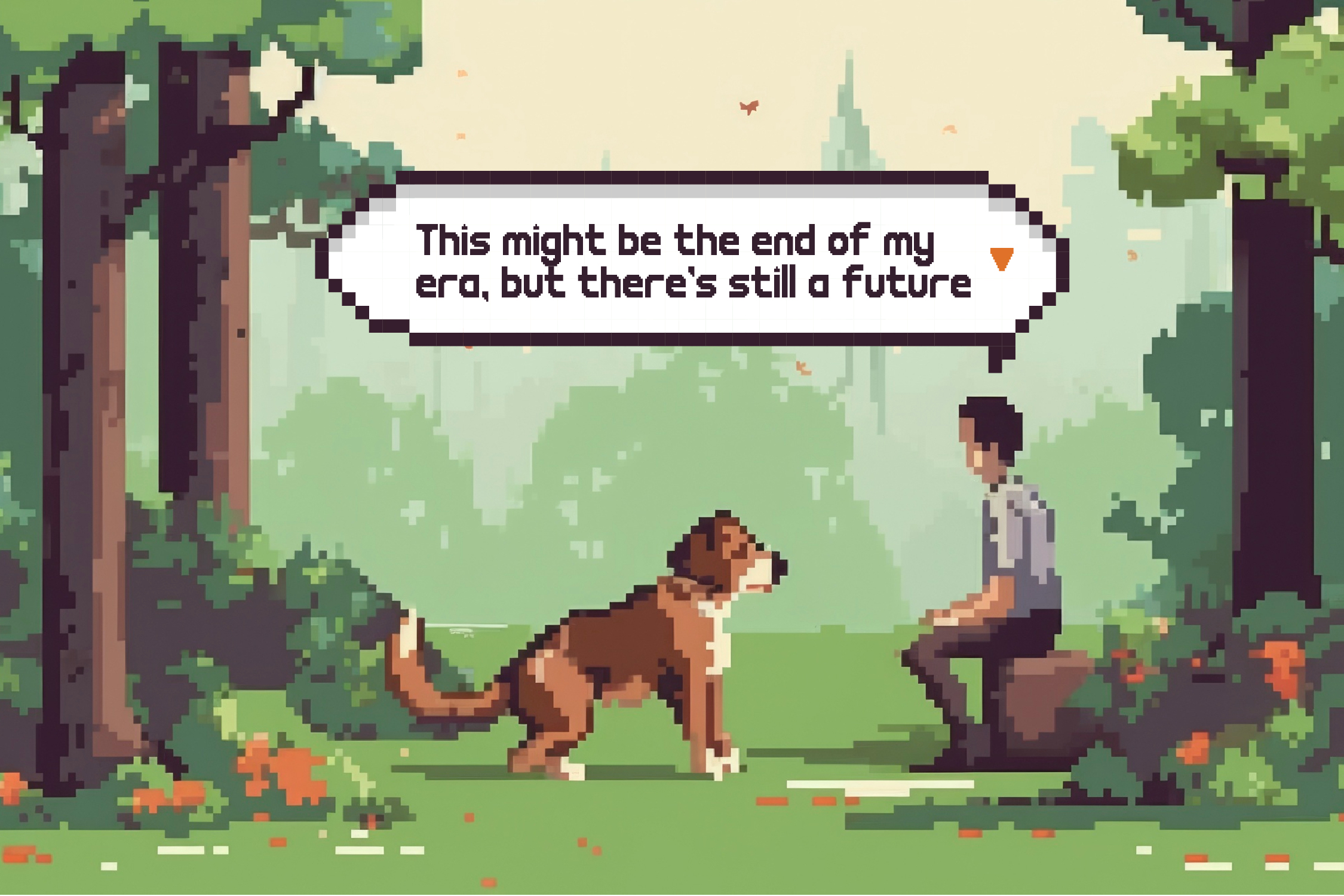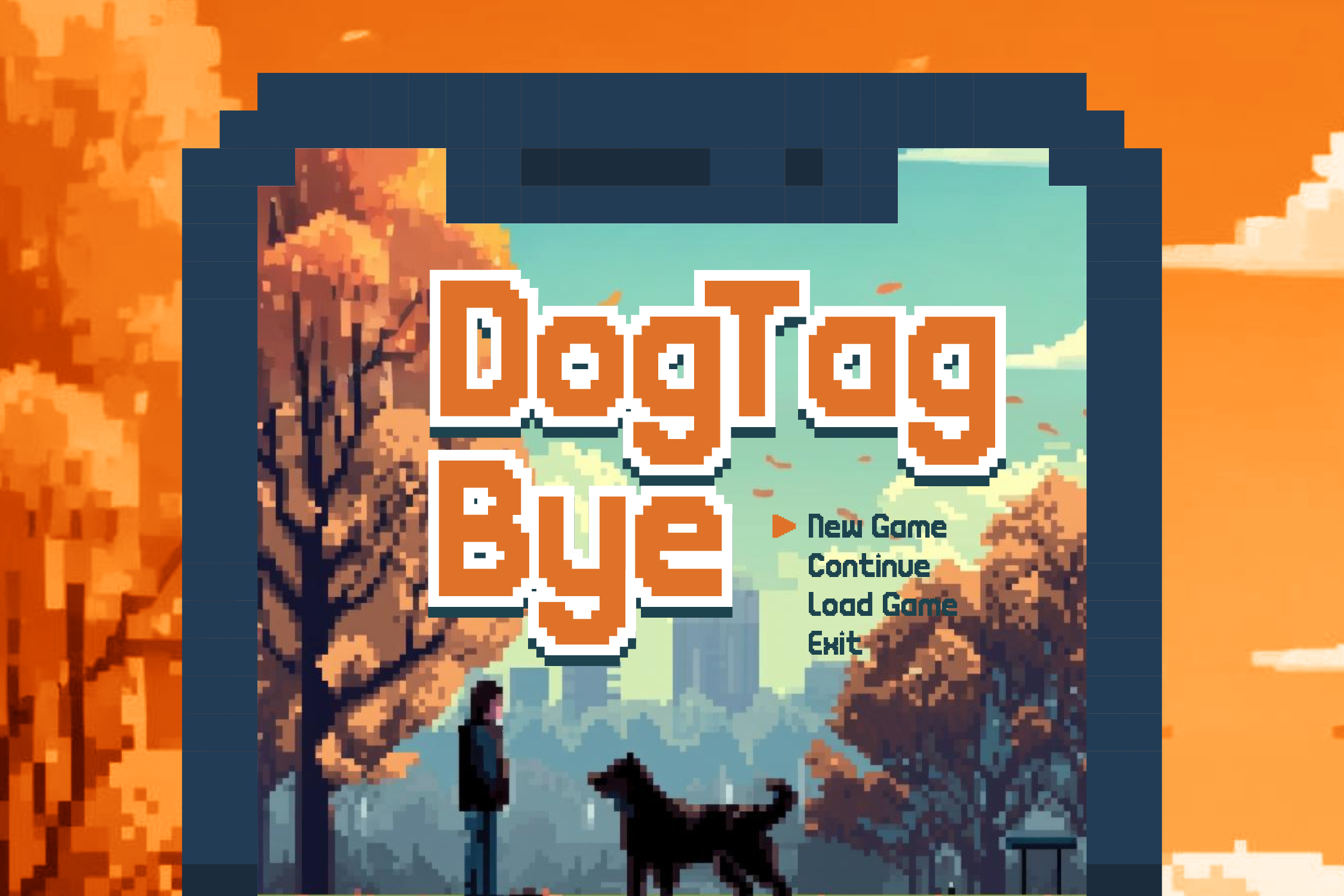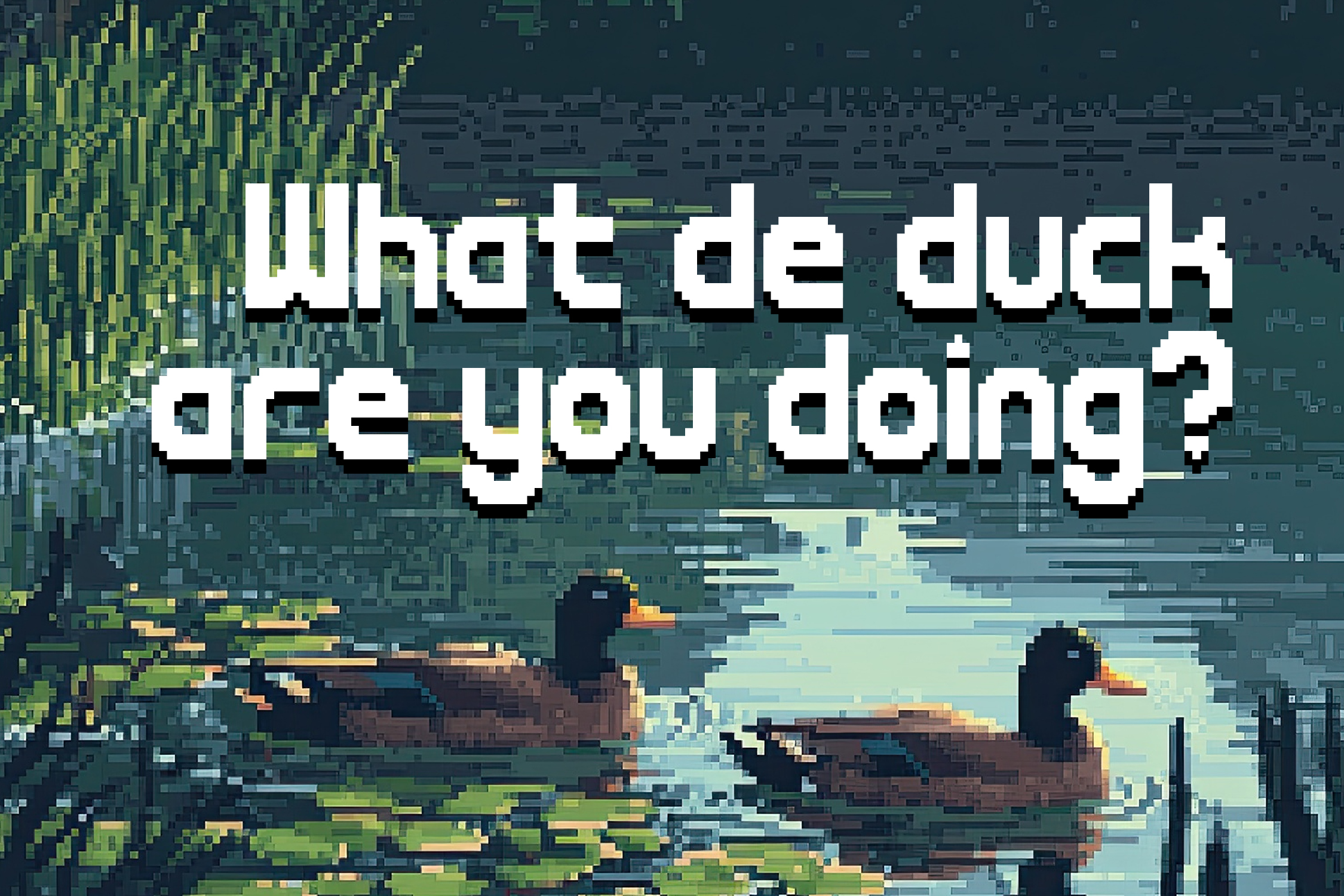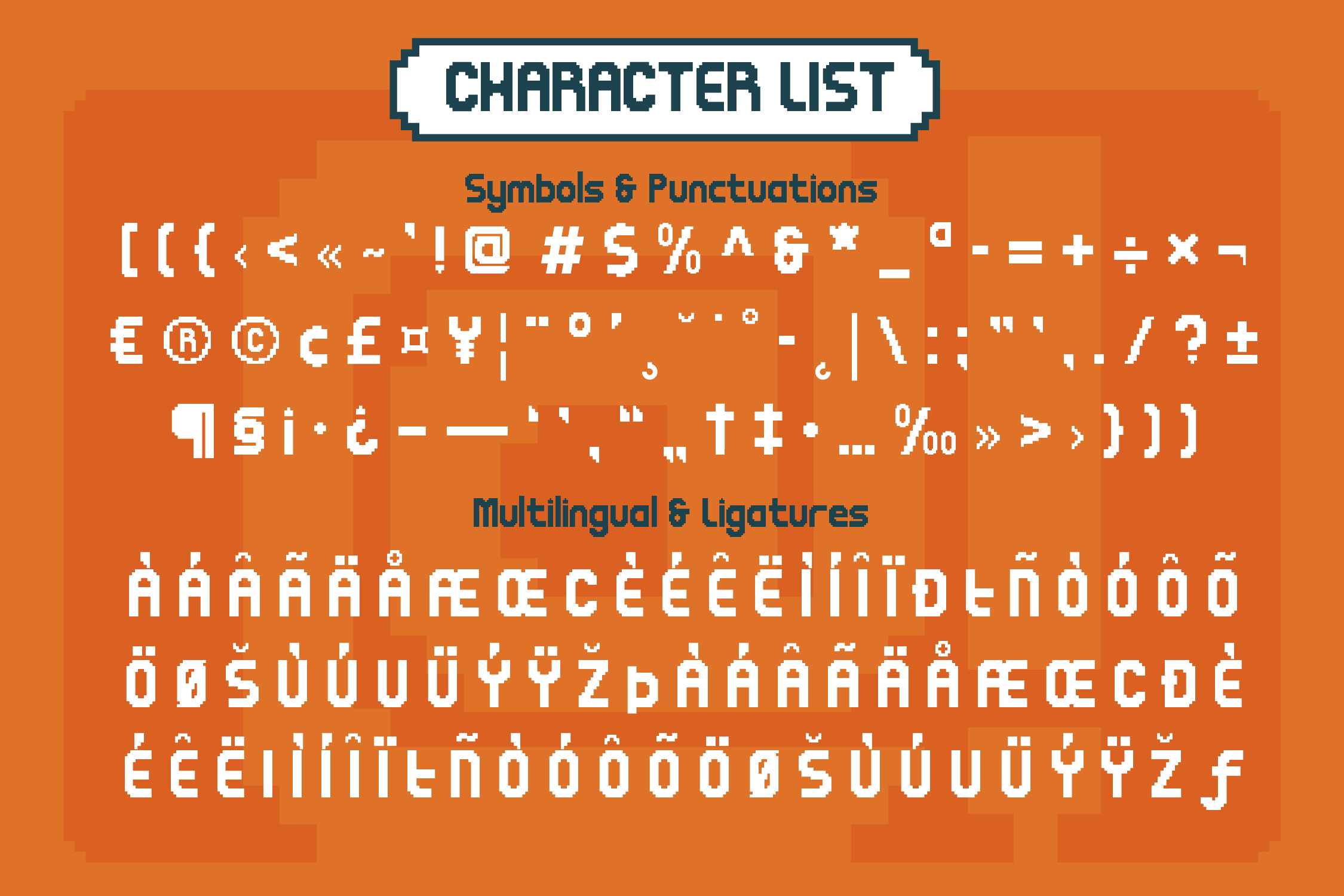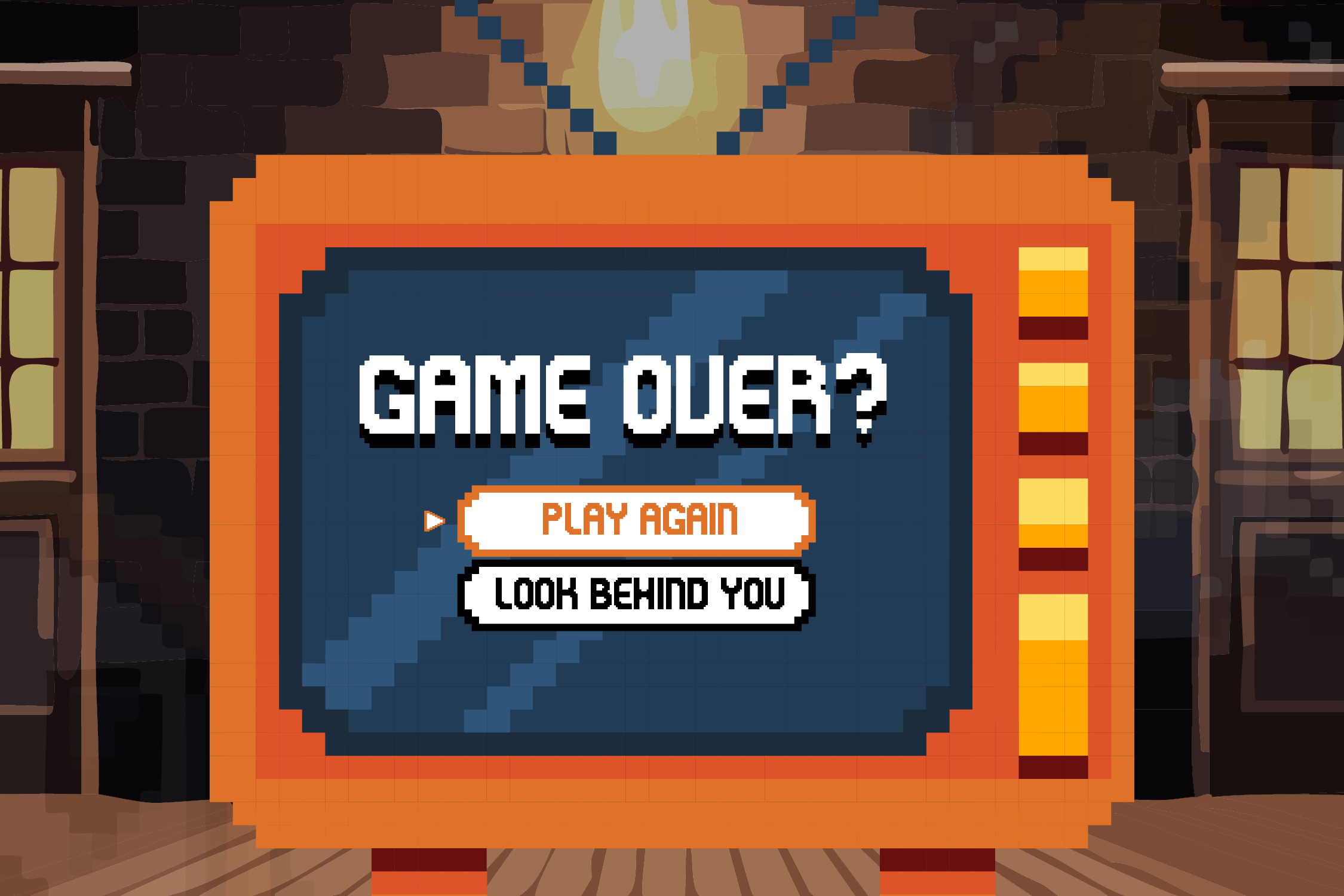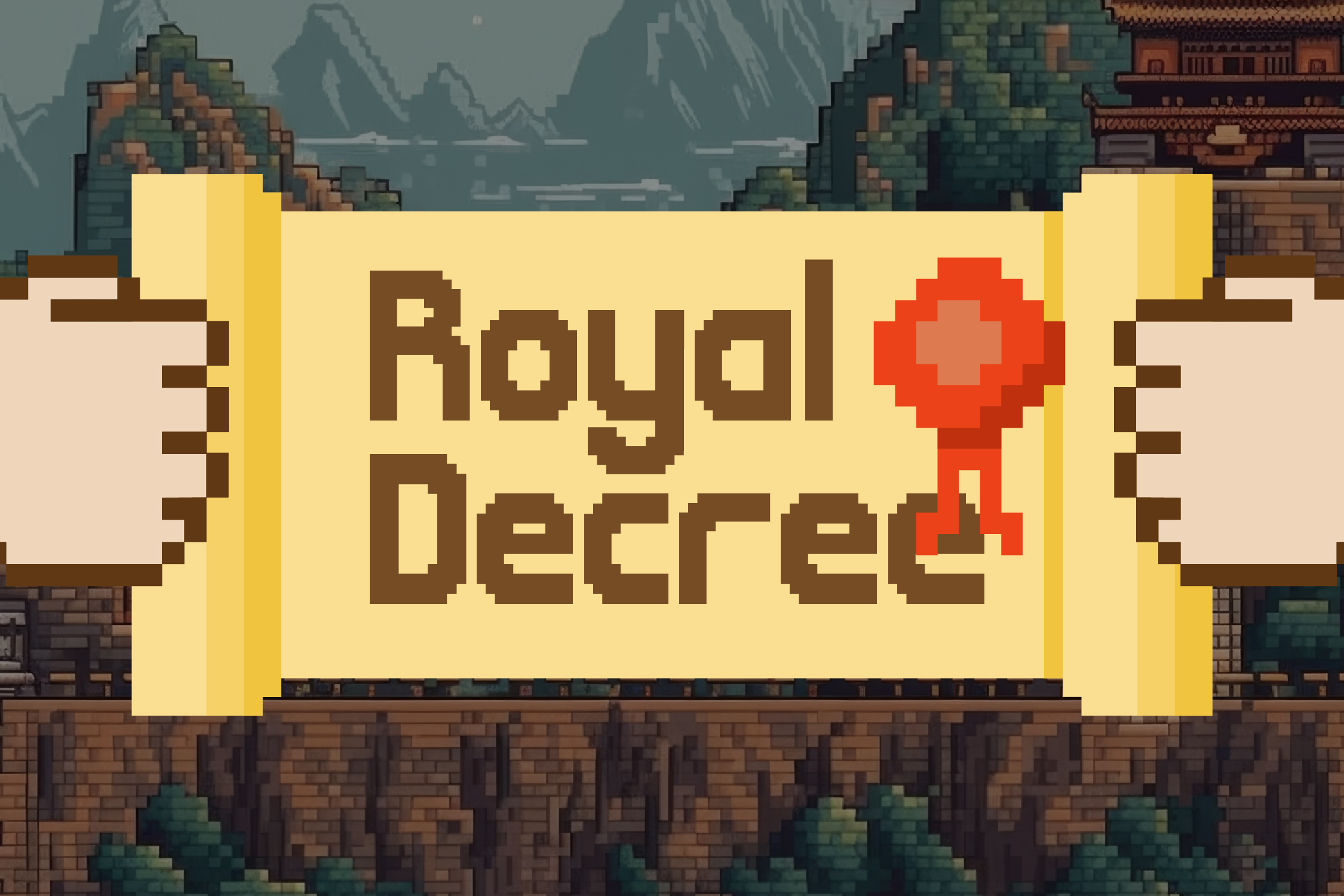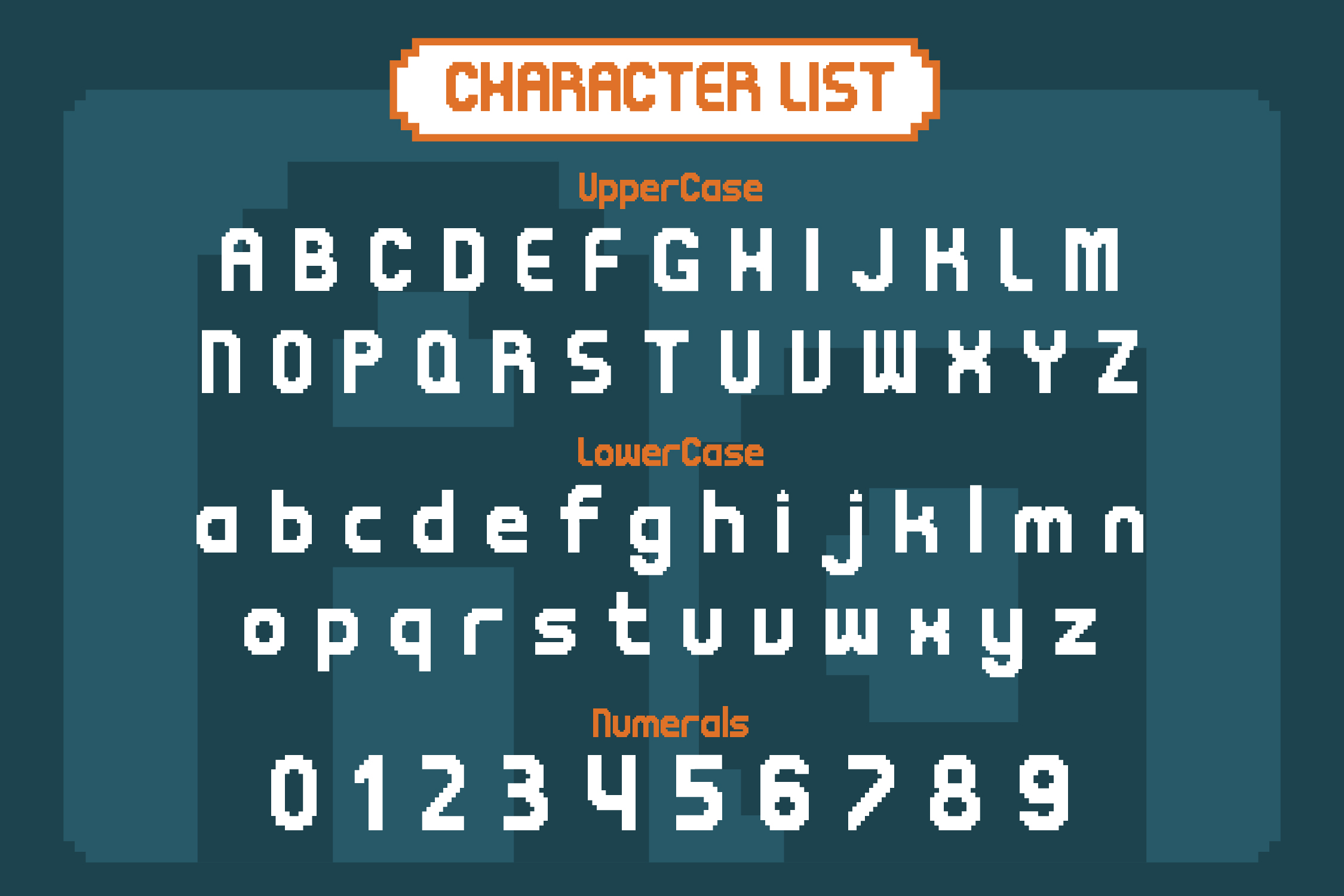
Galbite
Galbite is an 8-bit pixel font blending retro gaming nostalgia with modern design. Its bold, blocky characters, reminiscent of classic arcade games, are meticulously crafted for legibility at any size. Ideal for headlines, game titles, and digital art, Galbite brings iconic pixel art to contemporary projects. Its oblique style adds dynamic movement, making Galbite a versatile and visually striking choice for elevating your designs with retro flair.